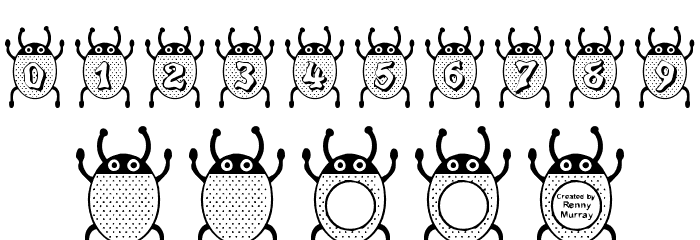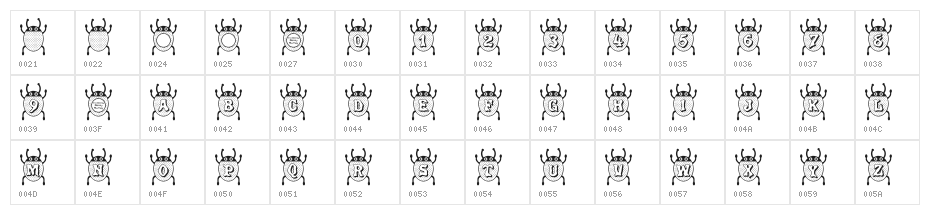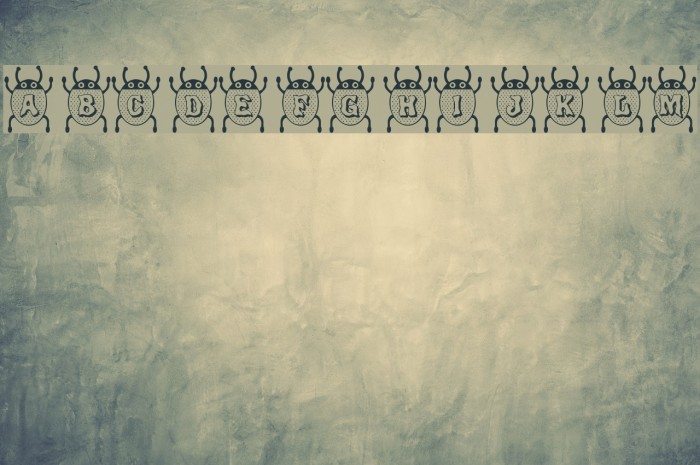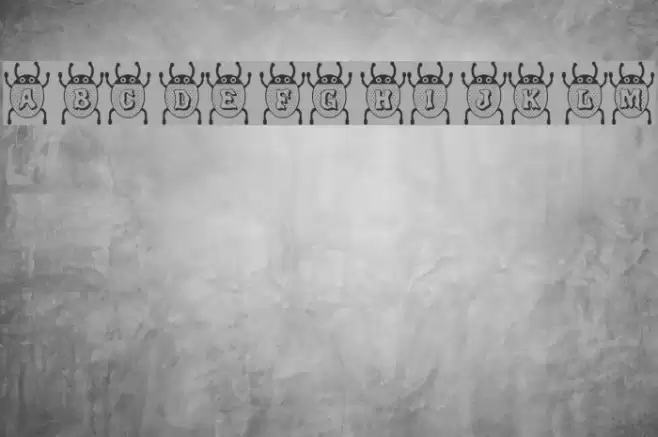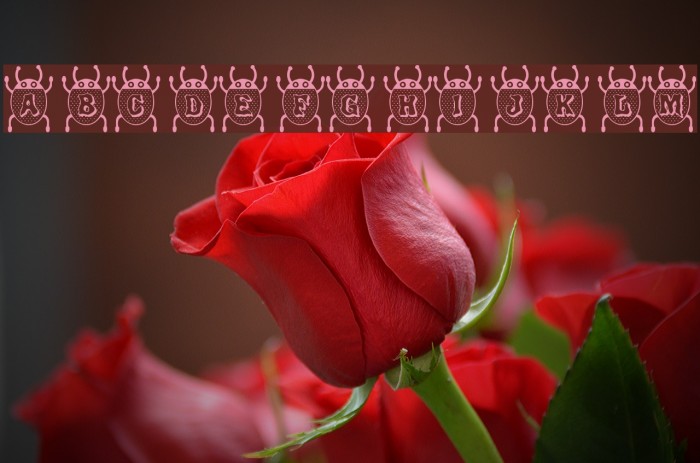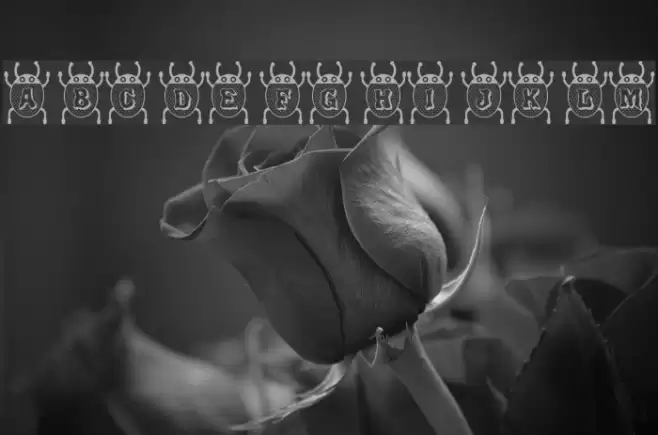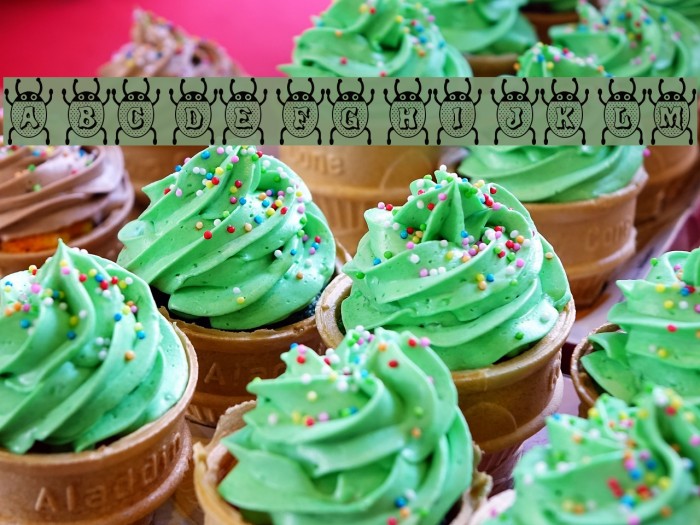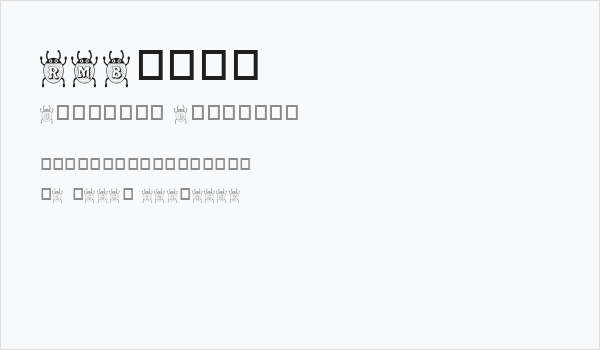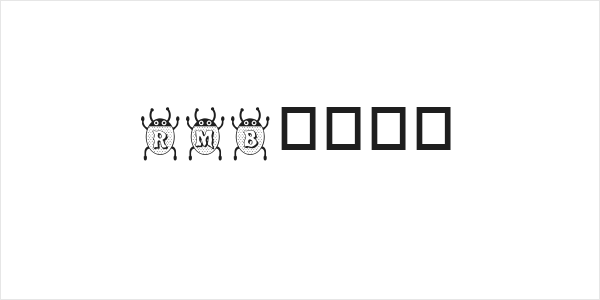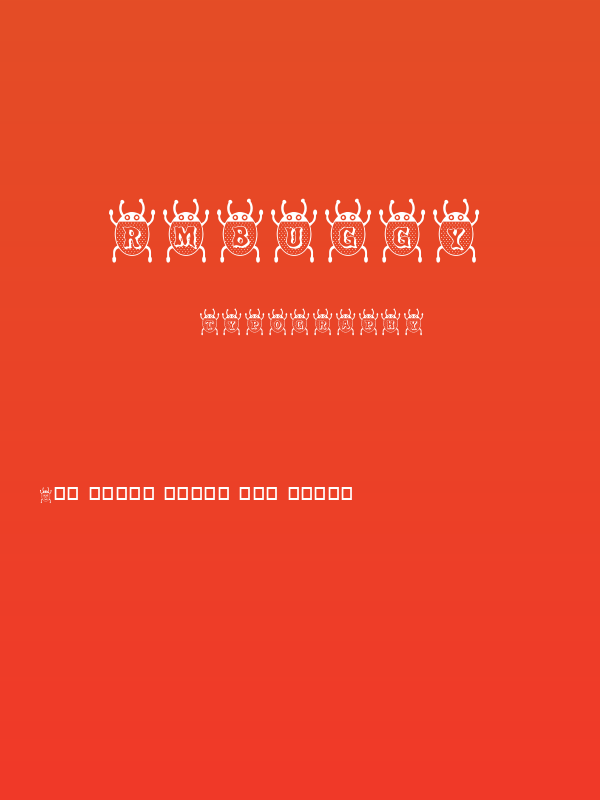
RMBuggy Font
RMBuggy Description
This whimsical and playful font features characters enclosed within bug-like shapes, complete with antennae and legs. Each letter and number is centered inside a dotted, beetle-inspired design, giving it a unique and quirky appearance. The font is highly decorative, making it ideal for projects that require a fun and engaging visual element. The characters are evenly spaced within their bug outlines, ensuring readability while maintaining the playful theme. This font is perfect for children's projects, themed events, or any creative endeavor that seeks to incorporate a lighthearted and imaginative style.
| Proposed Projects | Ideal for children's books, party invitations, themed event posters, and playful branding. |